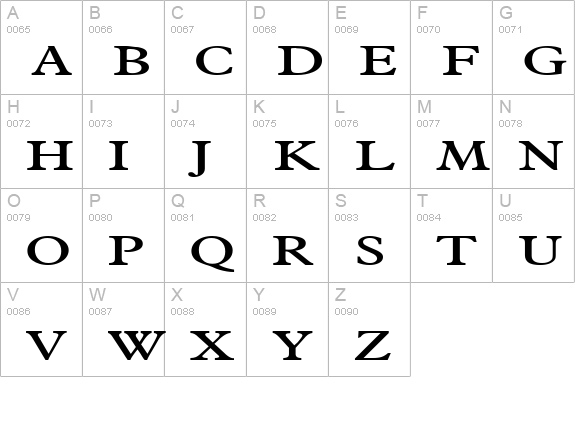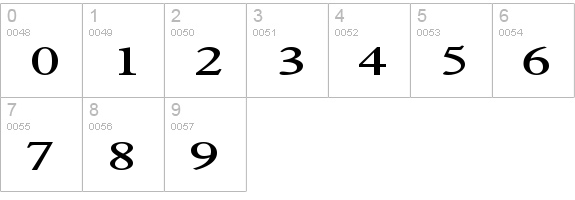
Nadine Normal is the standard, neutral variant in the Nadine typeface family \xE2\x80\x94 well suited to general body text, paragraphs, and standard typographic work.
Introducing the exquisite Nadine Normal font, a versatile typeface designed to bring elegance and sophistication to your projects. With its clean lines and classic appeal, Nadine Normal is perfect for a wide range of design applications, from branding and marketing materials to editorial layouts and more. This beautifully crafted font offers a perfect balance between modern style and timeless elegance, making it a must-have addition to any designer's toolkit. Whether you're working on a sleek logo design or creating eye-catching headlines, Nadine Normal is sure to make a lasting impression. Best of all, Nadine Normal is available for free download at FontsMarket.com, allowing you to access this stunning font without any cost. Don't miss out on the opportunity to elevate your designs with the effortless beauty of Nadine Normal. Download it today and see the difference it can make in your projects!